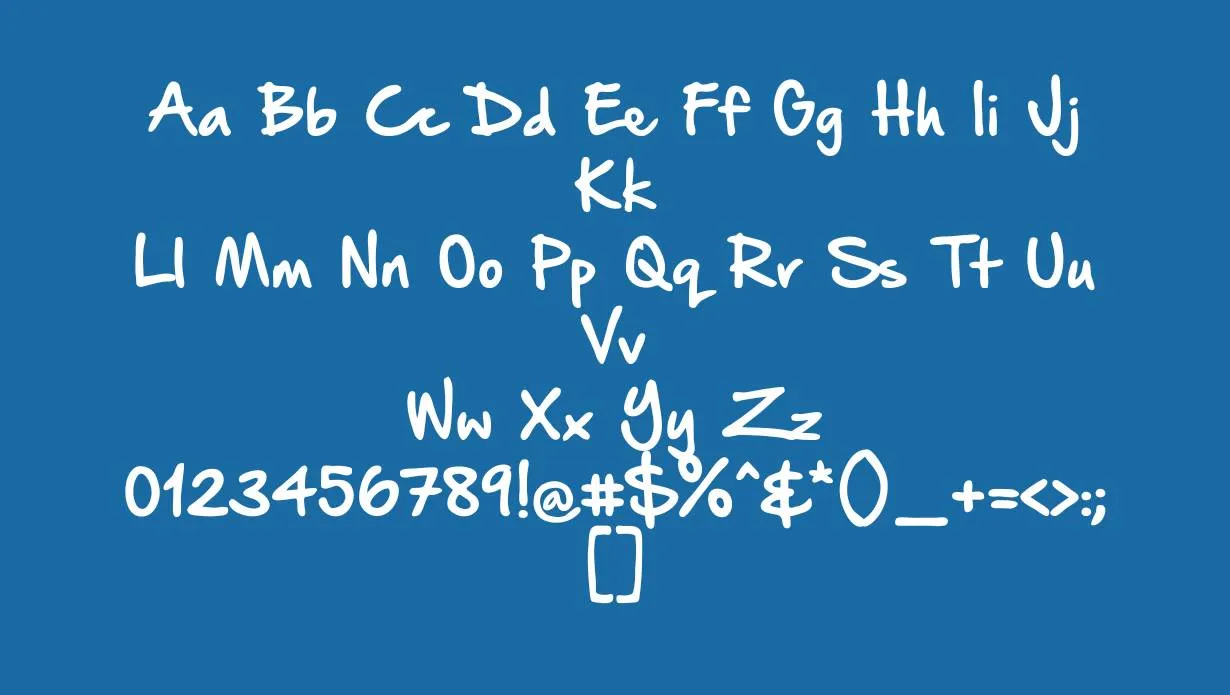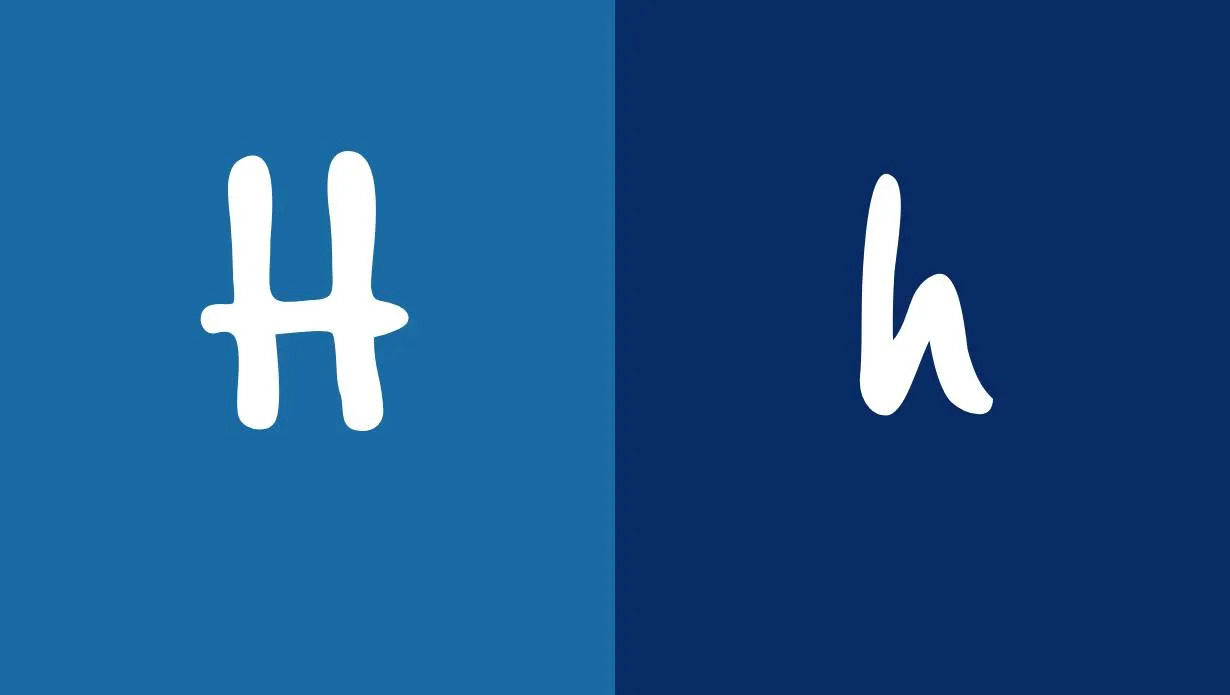
Hand of Sean Font was created by Sean Johnson who is quite famous for the creation of many famous fonts. Brittany Signature Font is the best pairing font for this typeface.
| Name | Hand of Sean Font |
| Designer | Sean Johnson |